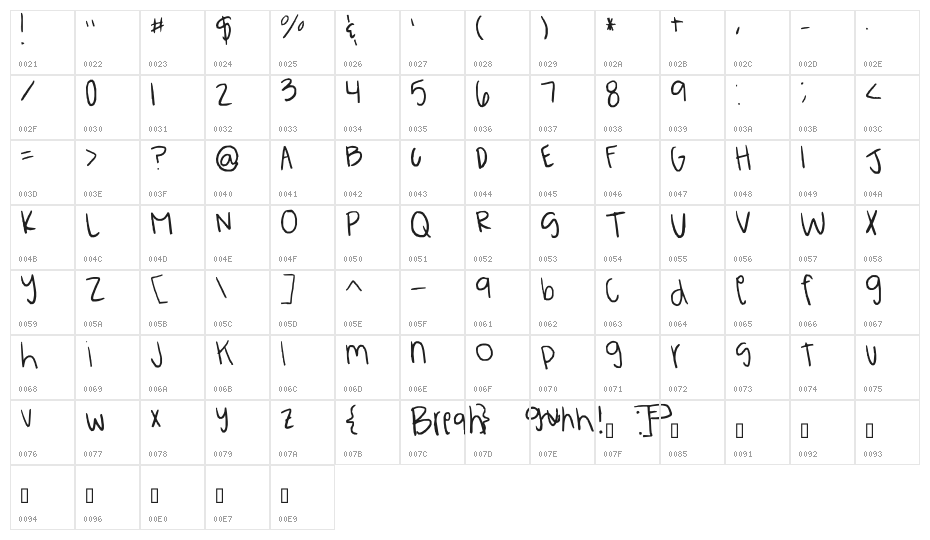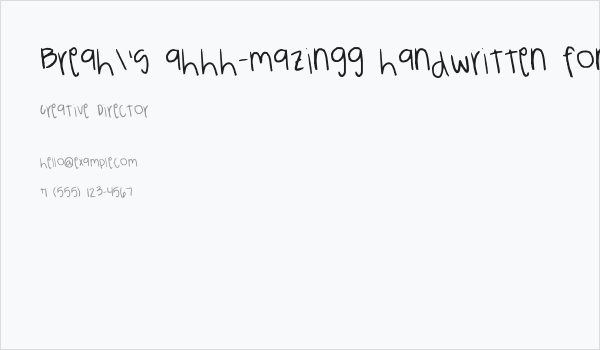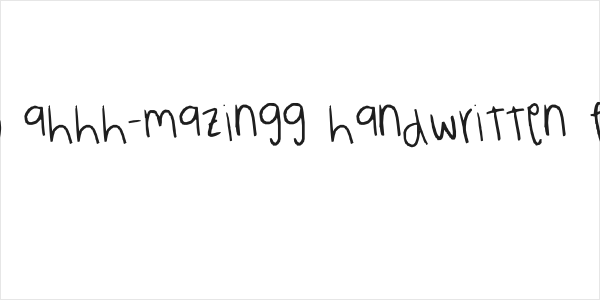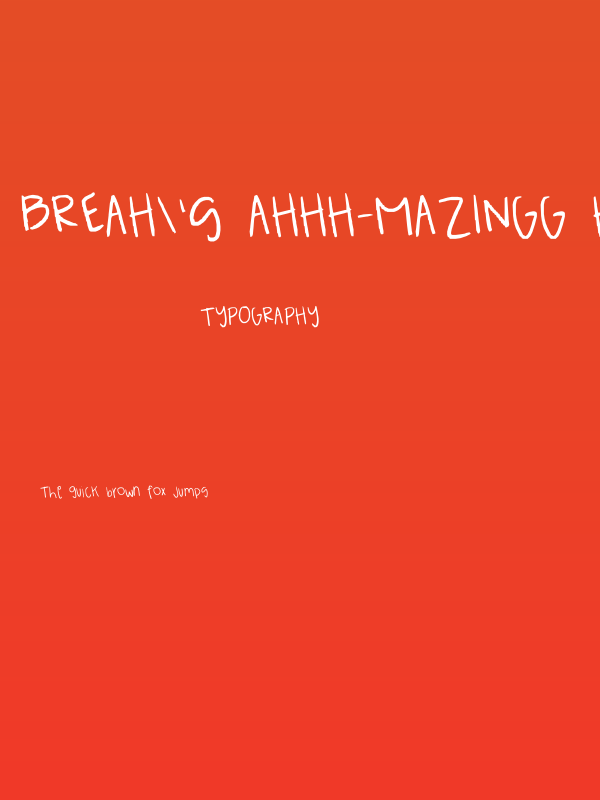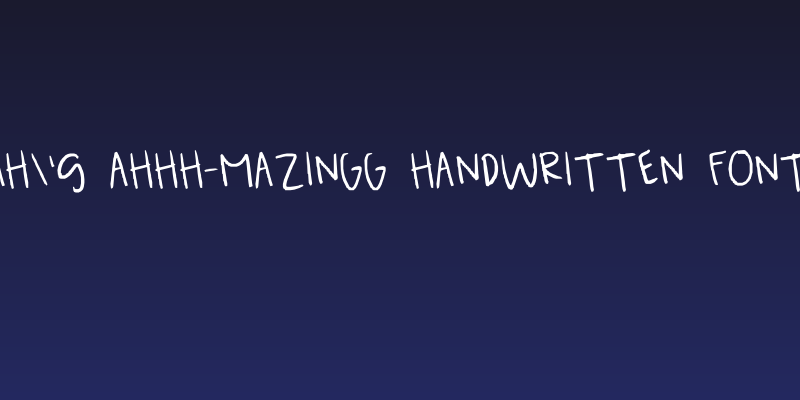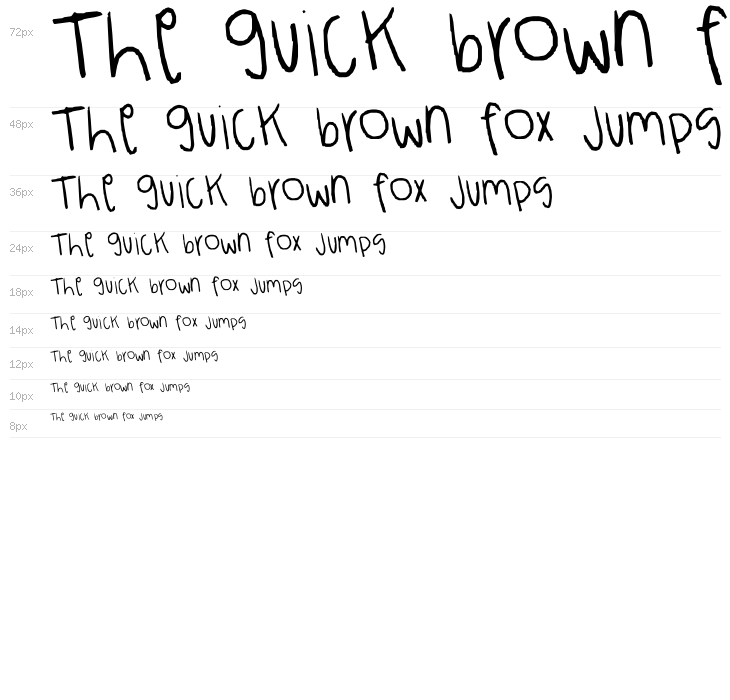
Breah's ahhh-mazingg handwritten font!! XD Font
Breah's ahhh-mazingg handwritten font!! XD Description
This font exudes a playful and casual handwritten style, characterized by its irregular and organic letterforms. The uppercase and lowercase letters maintain a consistent flow, with slightly varying heights and widths that add to its charm. The numbers and special characters follow the same handwritten aesthetic, ensuring a cohesive look across all elements. The strokes are moderately thick, giving the font a bold appearance without being overwhelming. This font's informal and friendly vibe makes it suitable for projects that require a personal touch.
| Proposed Projects | Ideal for greeting cards, personal blogs, children's books, and creative branding projects. |